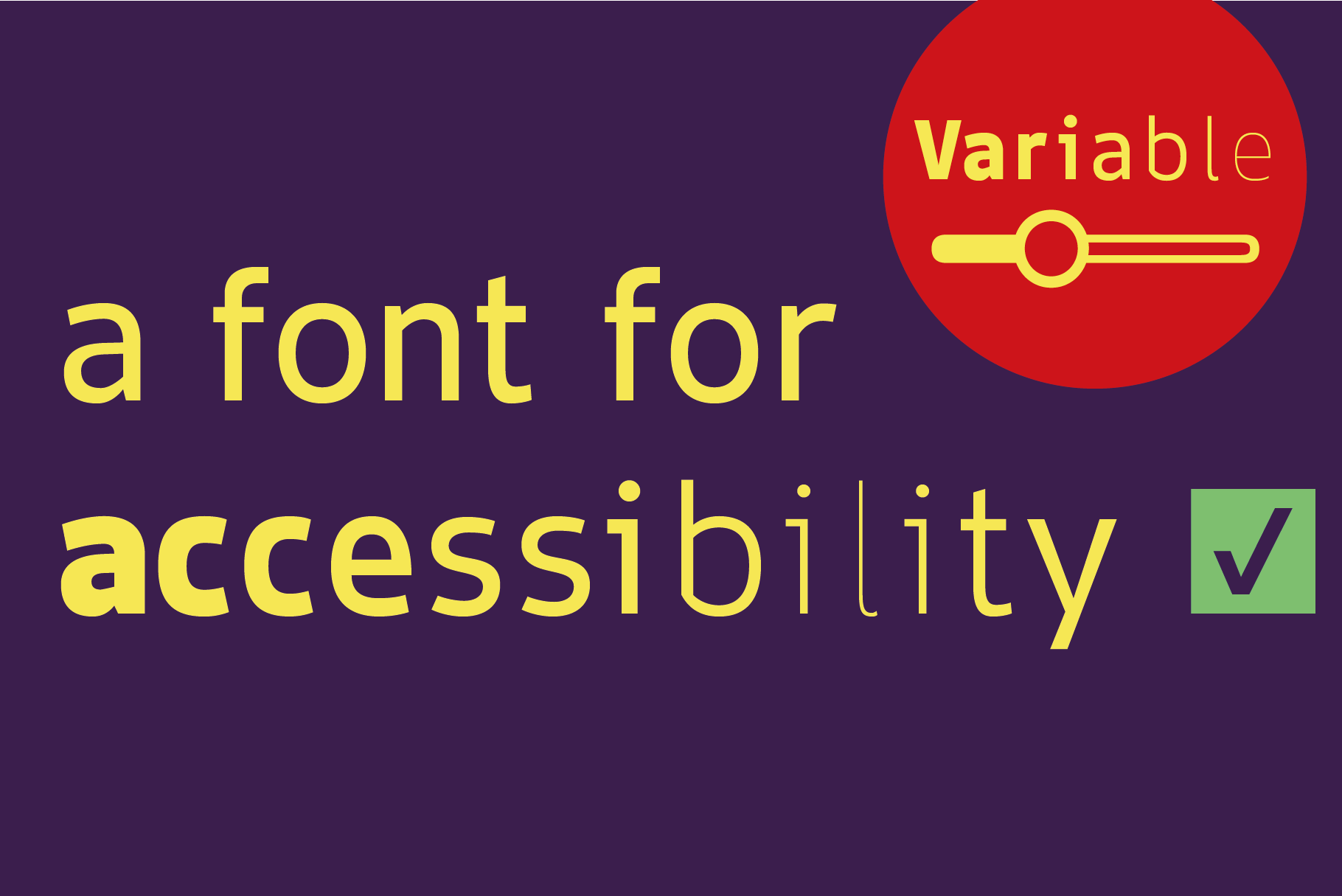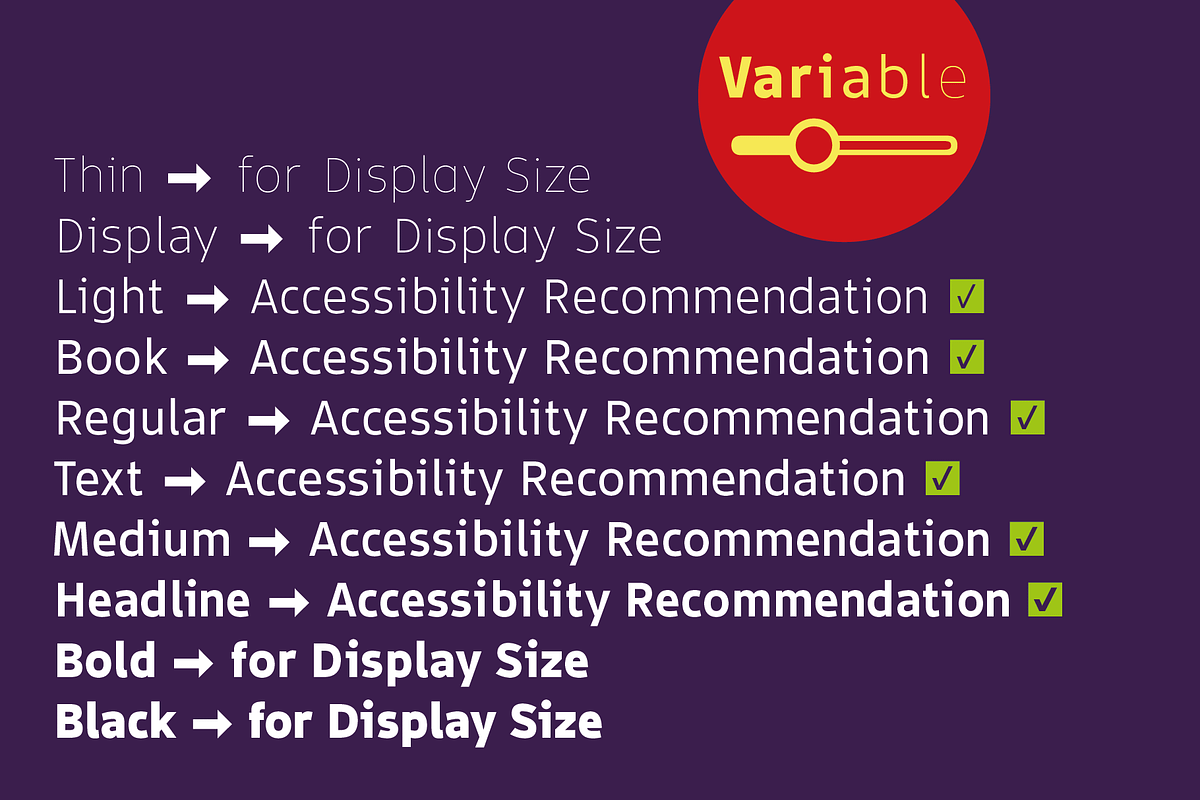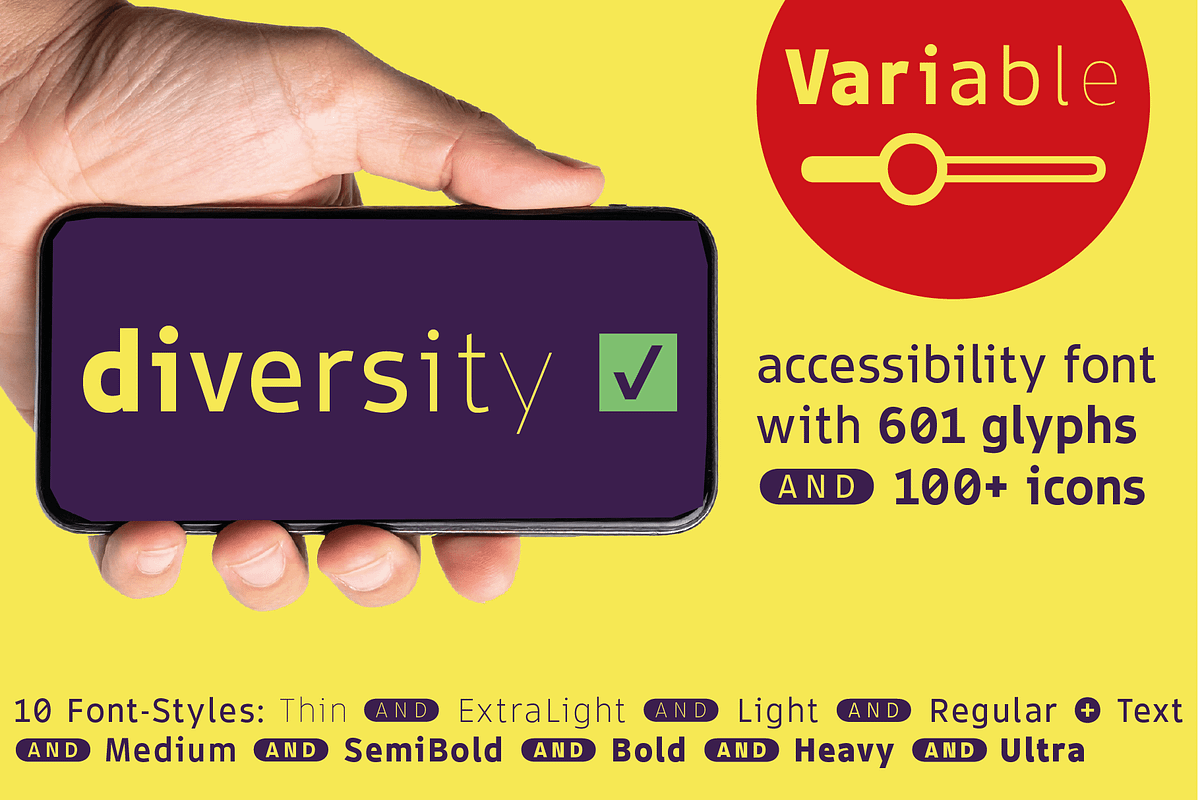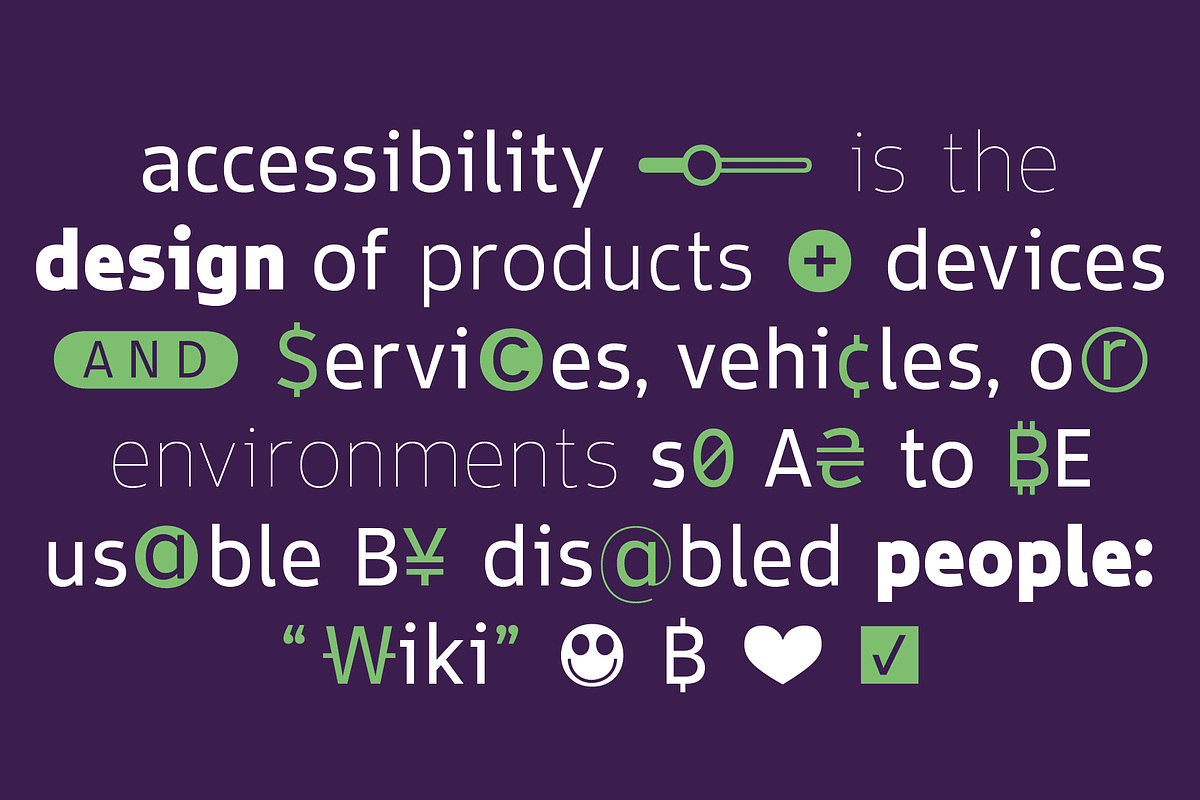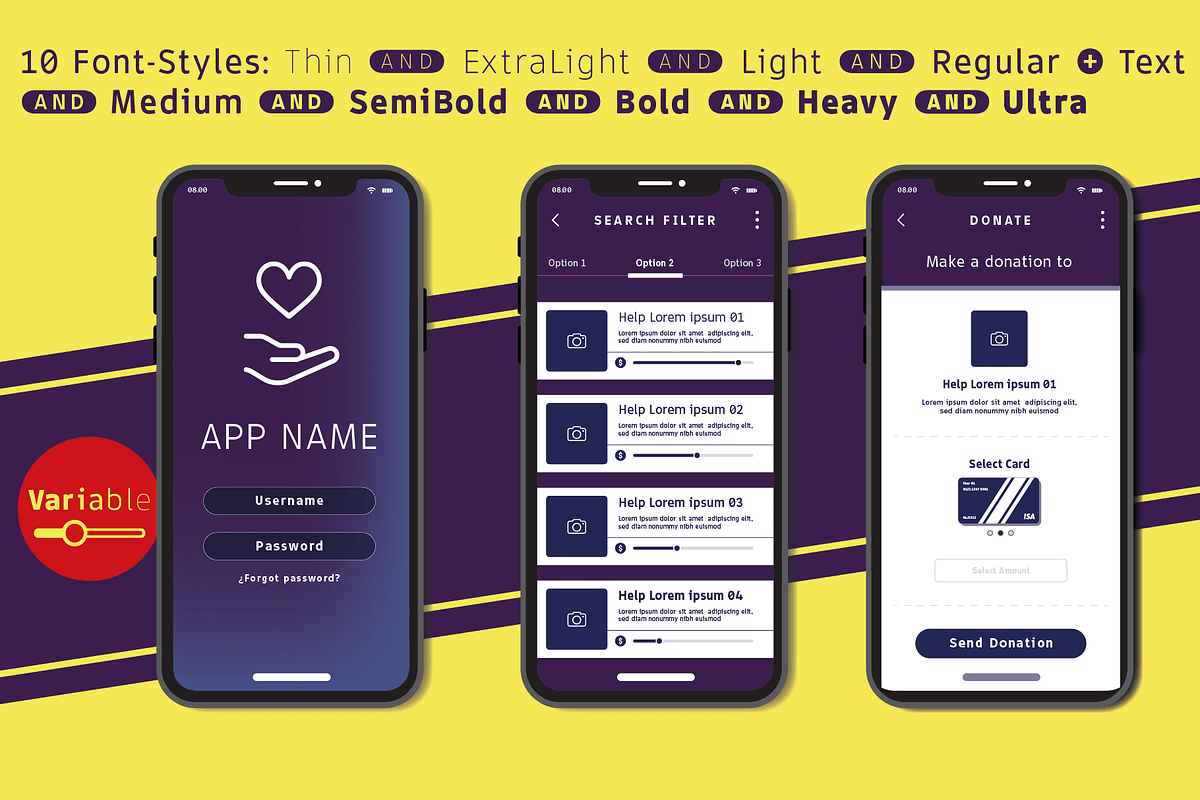
TYPEFACE Accessibility Sans 9 Fonts
To ensure that accessibility looks and works well, there is a new variable font optimized for readability called “Barrierefrei Sans”: 901 glyphs + 95 languages + 9 weights (Thin, ExtraLight, Light, Regular, Medium, SemiBold, Bold, Heavy, Ultra) for Mac & Windows.
The font fulfills criteria such as: ✅ large x-height (supports reading at small font sizes) ✅ distinguishability of letterforms (dyslexia) ✅ large aperture/open spaces (optimizes legibility) …
The variable typeface Barrierefrei Sans (accessibility) is designed from 2022–2024 (font-release 2025) for the font foundry Typo Graphic Design by the type designer Manuel Viergutz for optimized legibility and readability.
9 font-styles (Thin, Extra Light, Light, Regular, Medium, SemiBold, Bold, Heavy, Ultra) with 901 glyphs (Adobe Latin 3) for 95 languages (from Afrikaans to Zulu) inclusive 100+ icons like decorative extras, arrows, catch words, dingbats, emojis, symbols, geometric shapes (type the word #LOVE for ❤ as OpenType-Feature dlig) and stylistic alternates (4 stylistic sets).
Characteristics of the font “Barrierefrei Sans” are optimized legibility in the form of a large x-Height (easier to read at small sizes), an large apertures (lowercase letter “a” or “e”), a large counter (direct effect on a optimise legibility) and the distinctiveness of individual letter shapes facilitates quick recognition (l ≠ I or O ≠ 0).